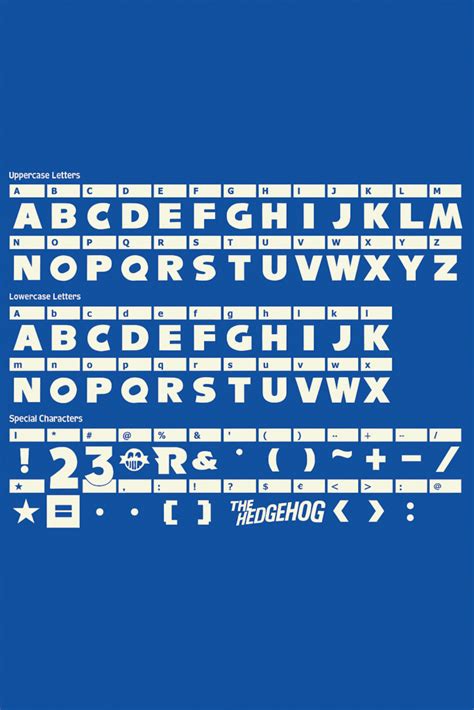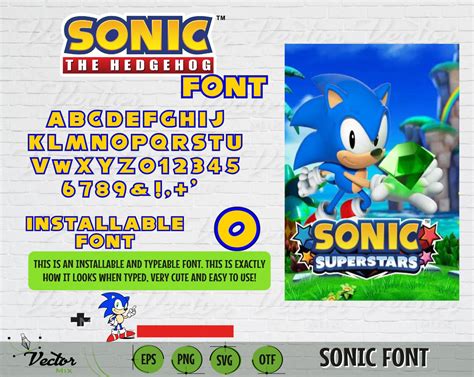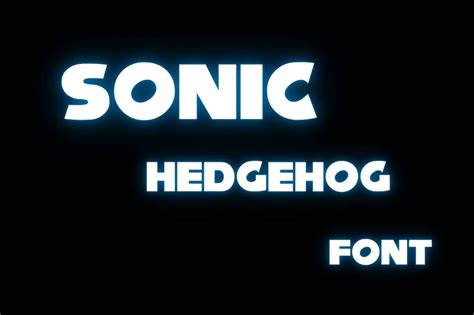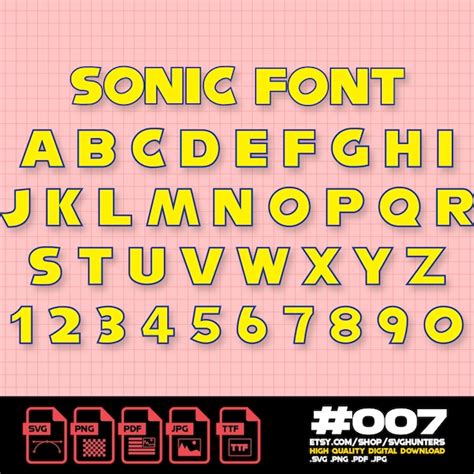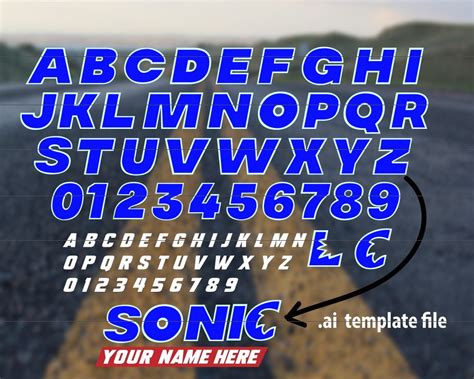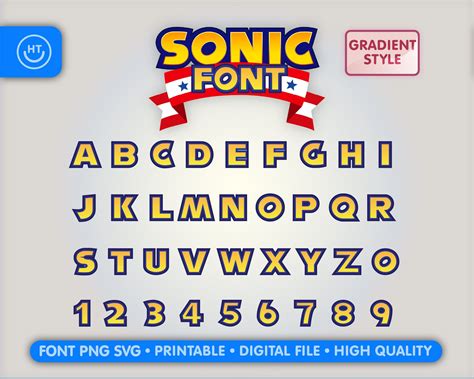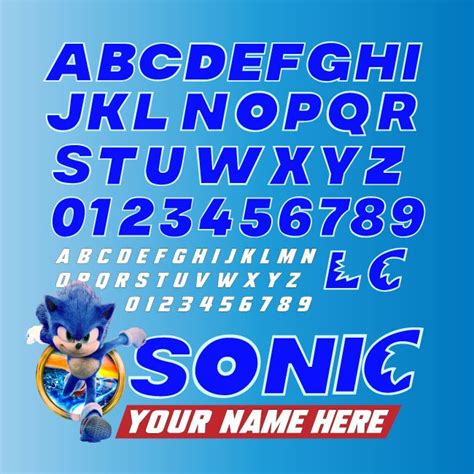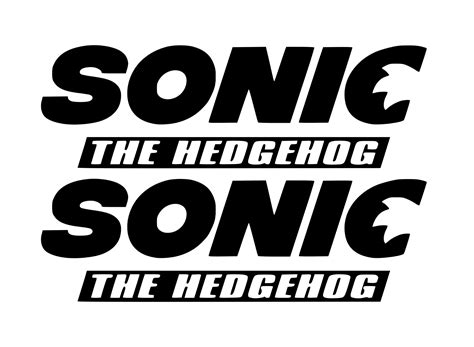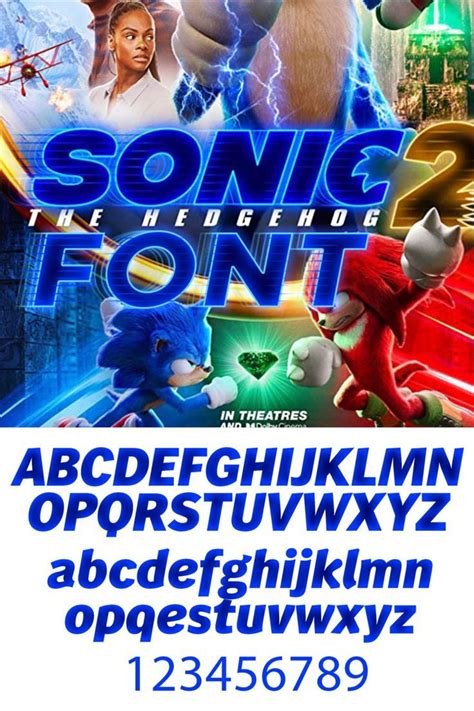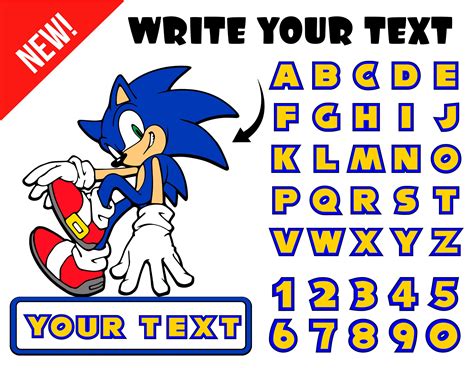
SONIC THE HEDGEHOG FONT
Exploring The Sonic The Hedgehog Font: A Look Into The Iconic Typeface ...
The world of typography has expanded to include a variety of unique and creative fonts, and one such example is the Sonic the Hedgehog font. This font is inspired by the iconic video game character, Sonic the Hedgehog, and captures the essence of his energetic and playful personality. With its distinctive style, this font has become a popular choice for designers and enthusiasts alike.
The font is designed to resemble the iconic blue hedgehog's signature look, featuring sharp edges and a vibrant color scheme. It is a bold and modern font that can be used for various purposes, such as creating eye-catching logos, designing video game-themed artwork, or even for personal projects that celebrate the beloved video game character.
One of the key benefits of using the Sonic the Hedgehog font is its ability to evoke a sense of nostalgia and fun. It can transport users back to the exciting world of Sonic the Hedgehog video games, where players embark on thrilling adventures with the speedy hedgehog. The font's unique design also allows for creative expression, enabling designers to create visually appealing compositions that stand out from the crowd.
In summary, the Sonic the Hedgehog font is a creative and distinctive typography option, offering a fun and nostalgic experience for those who love the iconic video game character. Its bold and modern style makes it a versatile choice for various design projects, ensuring that your work will leave a lasting impression.